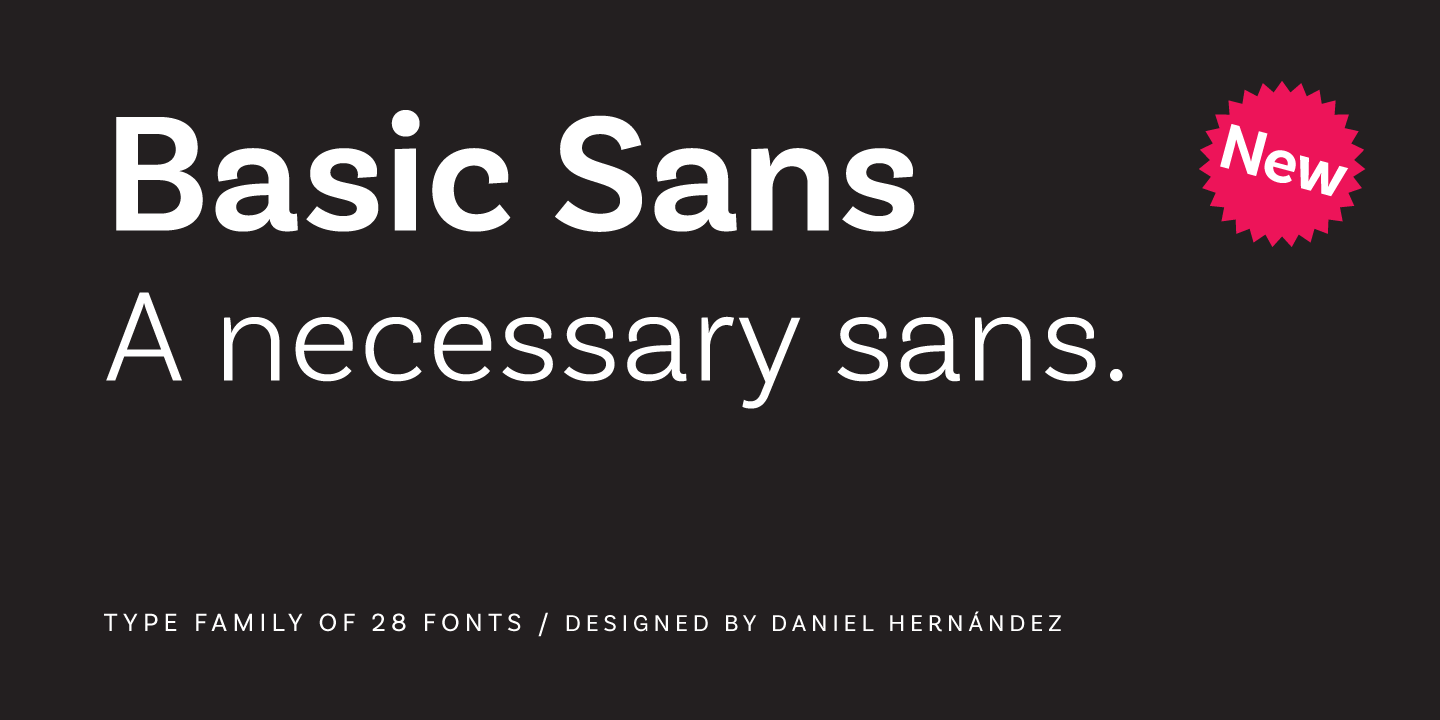
Basic Sans Font is perfect for body text, corporate documents, educational materials, clean websites, business presentations, technical manuals, simple logos, informational signage, and everyday communication needs. This reliable typeface provides exceptional legibility and neutral aesthetics for projects requiring clear, straightforward typography without visual distractions.
What makes Basic Sans Font exciting is its timeless simplicity that prioritizes clarity and functionality over decorative elements. The font features perfectly balanced letterforms with optimal spacing and neutral character that ensures maximum readability across all media. Its versatile personality and dependable performance make it irresistible for professionals seeking reliable typography that enhances content without competing for attention.
The Basic Sans Font family includes essential weights and practical styles: Light, Regular, Medium, Bold, and corresponding Italic variations. Each weight maintains the font's clean character while offering designers fundamental flexibility for creating clear hierarchies and readable text layouts across various communication formats.
Whether you're designing for everyday business or educational purposes, Basic Sans Font Free Download provides designers with a dependable, functional typeface solution. The font's clean aesthetics and neutral styling make it ideal for government agencies, educational institutions, healthcare organizations, and standard business communications. Its reliable performance ensures your message communicates clearly and effectively while maintaining outstanding readability. The comprehensive character set includes international language support and standard punctuation, making it perfect for creating straightforward headlines and text layouts that prioritize content accessibility and clear communication over decorative typography elements.